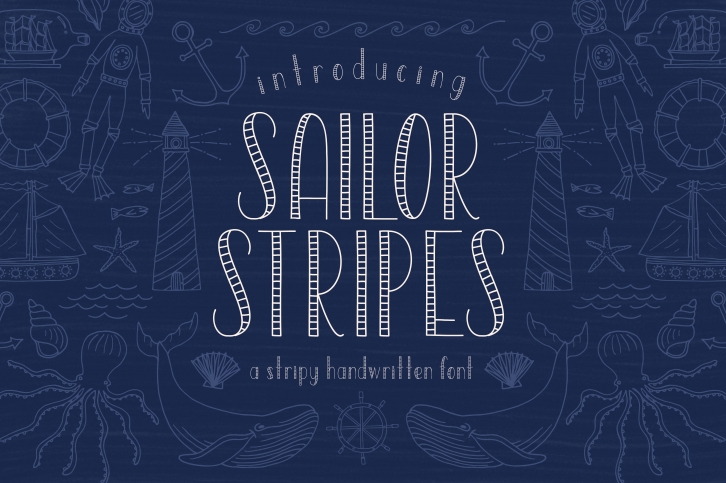
Sailor Stripes San Serif is a great font that was designed by On the Mark Designs. Imagine the amount of combinations you can create using this font! The archive is 3.33 MB and it was released on October 1, 2017. Sailor Stripes San Serif looks beautiful on wedding invitations, greeting cards, logos, posters, labels, t-shirt designs, logos, business cards and is perfect for use in ink or watercolor works, fashion, magazines, packaging and food menus, children's books and more!